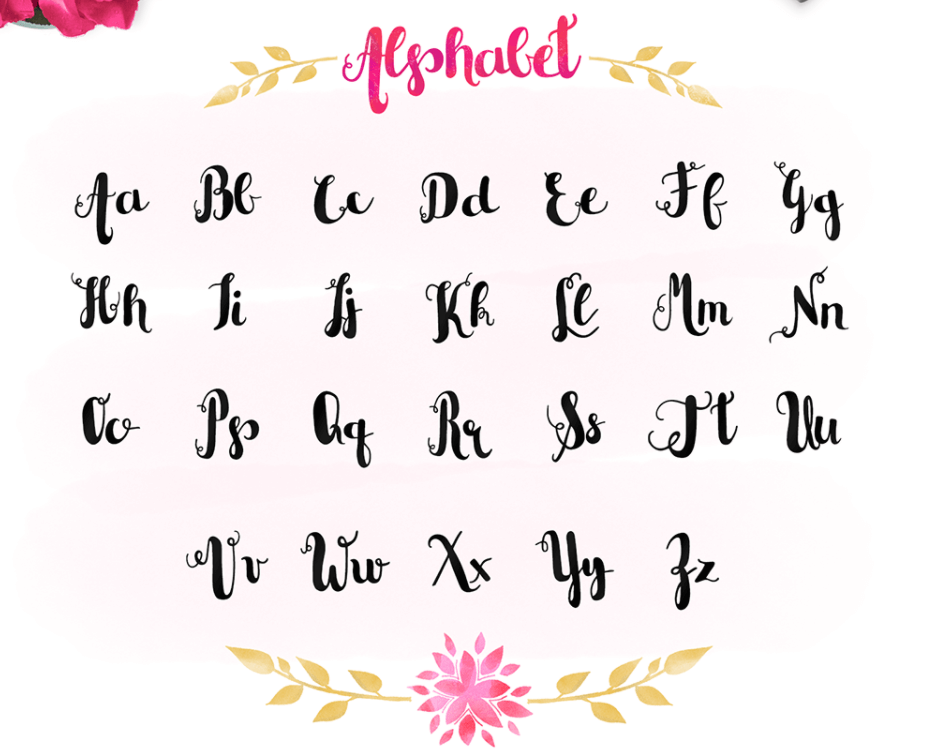
Little Cutie
We’ve added another amazing font called Little Cutie, which has a tablet gothic appearance and a billabong with an exquisite clever look. This font can be used in current and future projects. The author of this font creates slim and smooth corner edges, which is one of the key reasons for its appeal. The typeface appears to be clean, sharp, and charming. It’s a nice, elegant, and fantastic texture that fits well in any setting or project.
The font may be used to create the best designs as a text generator. This is a delightful typeface that captures the attention of its audience because it has a large number of gorgeous glyphs and characters that are accessible for free and can be used to create distinctive headings and content. An elegant script texture made specifically for luxury, fashion, and trendy designs. It may be used to create website headlines, CSS stylesheets, and branding logos, among other things. The font was designed and published by Junik Studio.
This is a script font typeface with stylistics and artistic. It may be used to construct a wide range of graphic design tasks. That attractive font has a distinct and charming texture, making it suitable for usage in font pairs alongside calligraphic typefaces. For this reason, each designer handled it as though it were a truly flawless typeface in every way. The font is primarily intended for use in event and conference venues and game interfaces, directories, annual reports, and presentations.